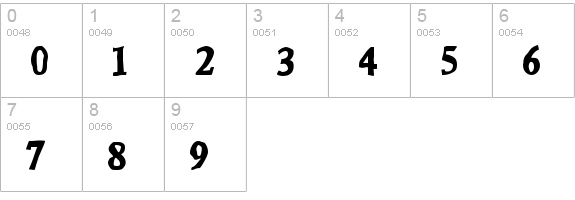
Bountiful Font Details
The Bountiful font is a beautiful and versatile typeface that exudes elegance and sophistication. With its flowing curves and graceful lines, this font is perfect for adding a touch of charm to any project. Whether you're designing invitations, branding materials, or website content, Bountiful will elevate your work to new heights. What's even better is that Bountiful is available for free download at FontsMarket.com. This means you can easily access this stunning font without any cost, making it a fantastic option for both personal and commercial projects. Don't miss out on the opportunity to enhance your designs with the timeless beauty of Bountiful font. Download it today and let your creativity shine!